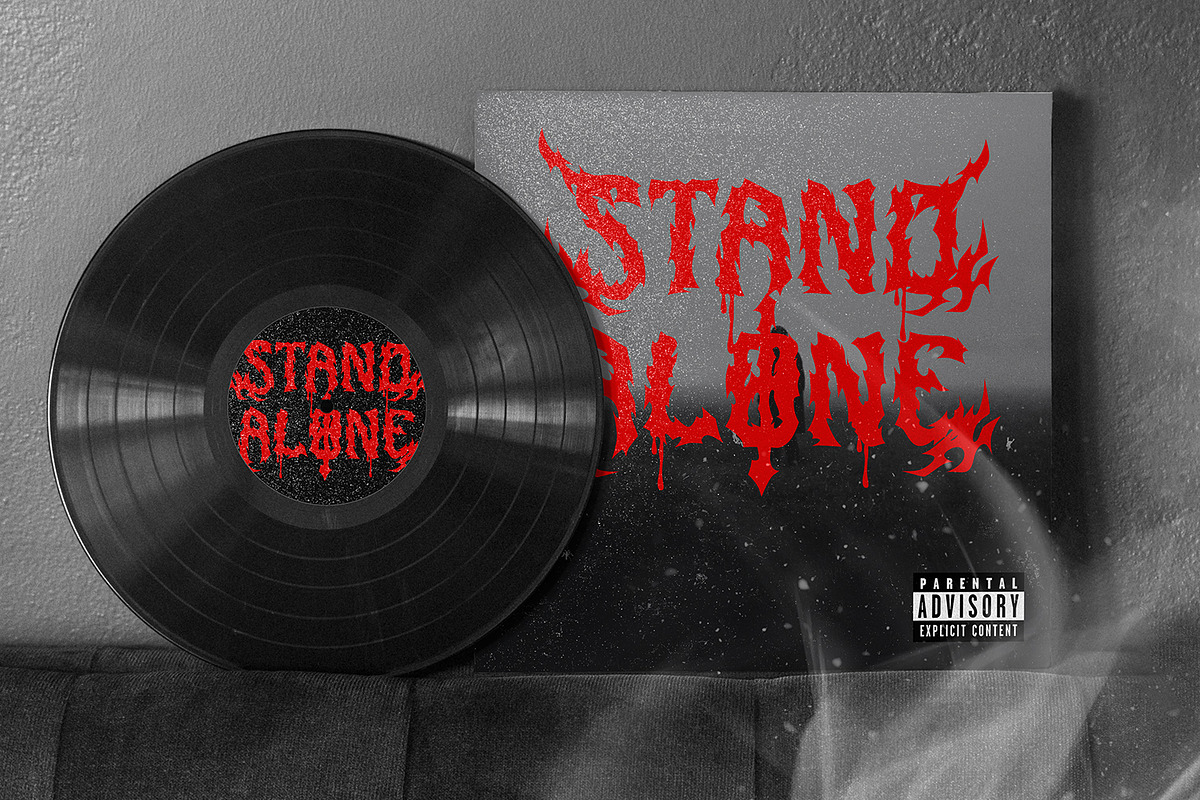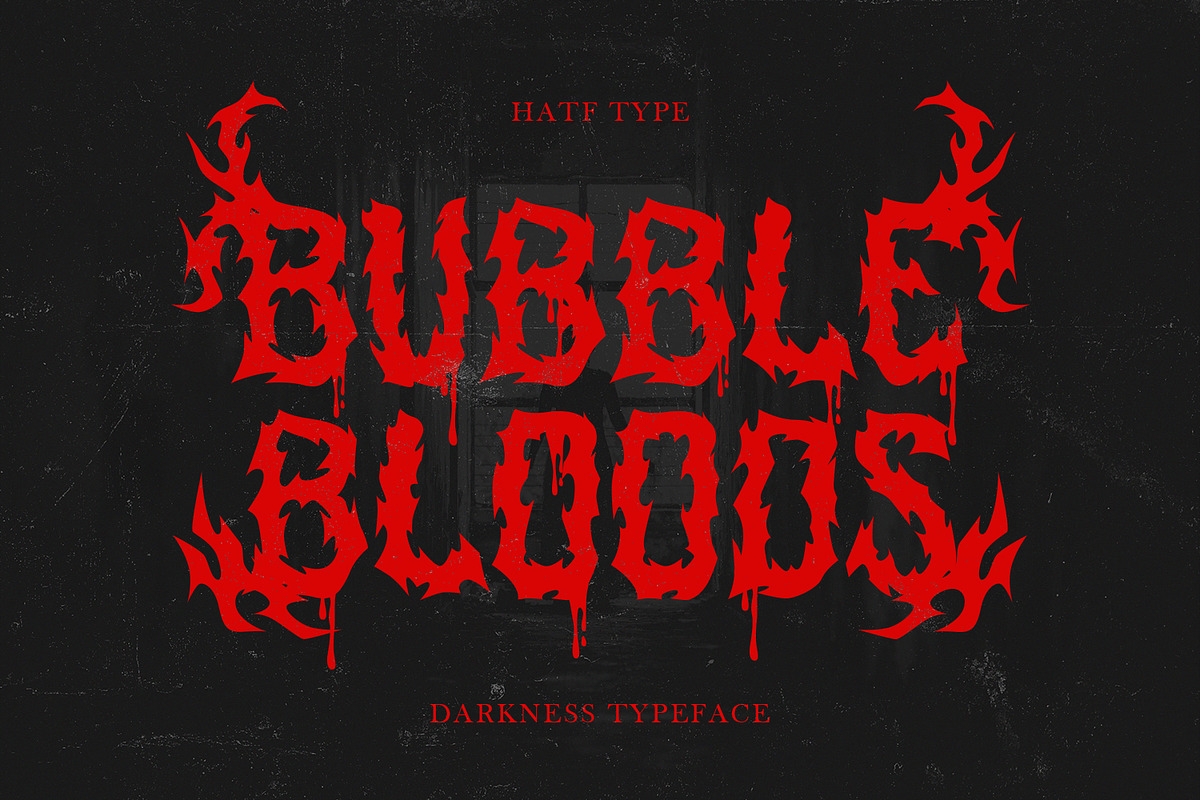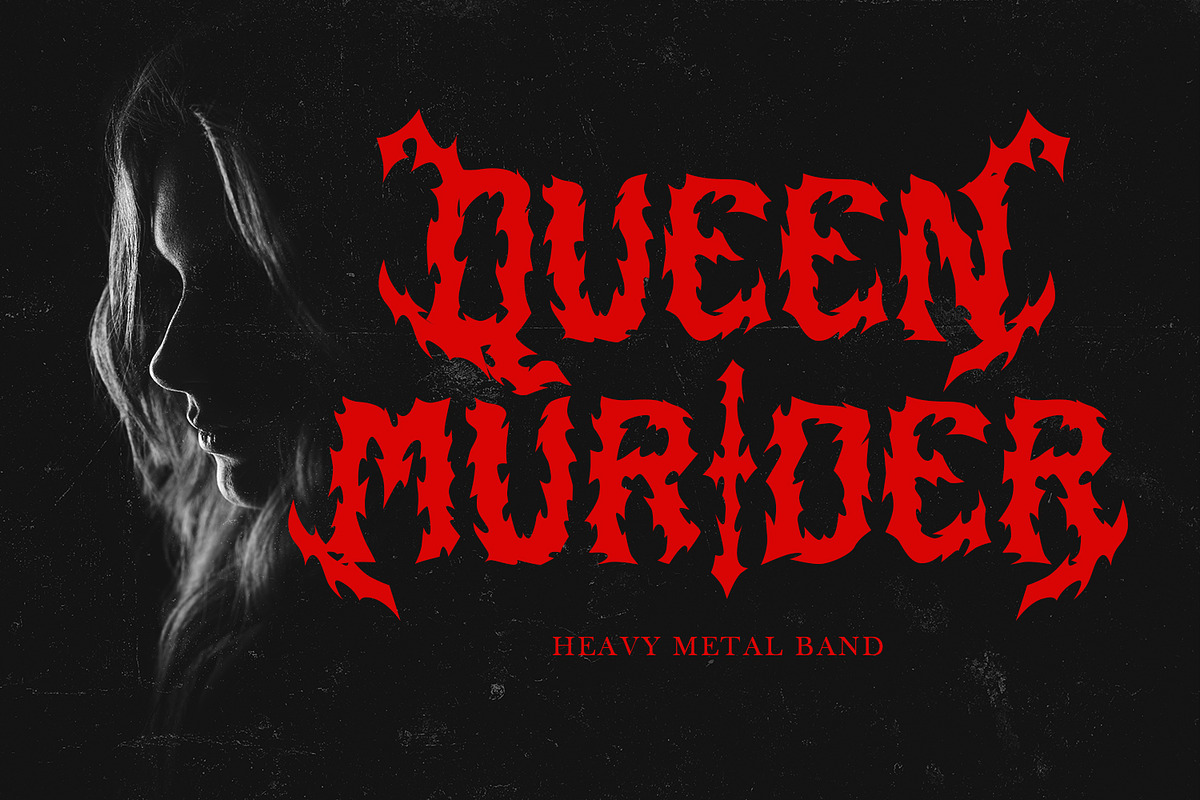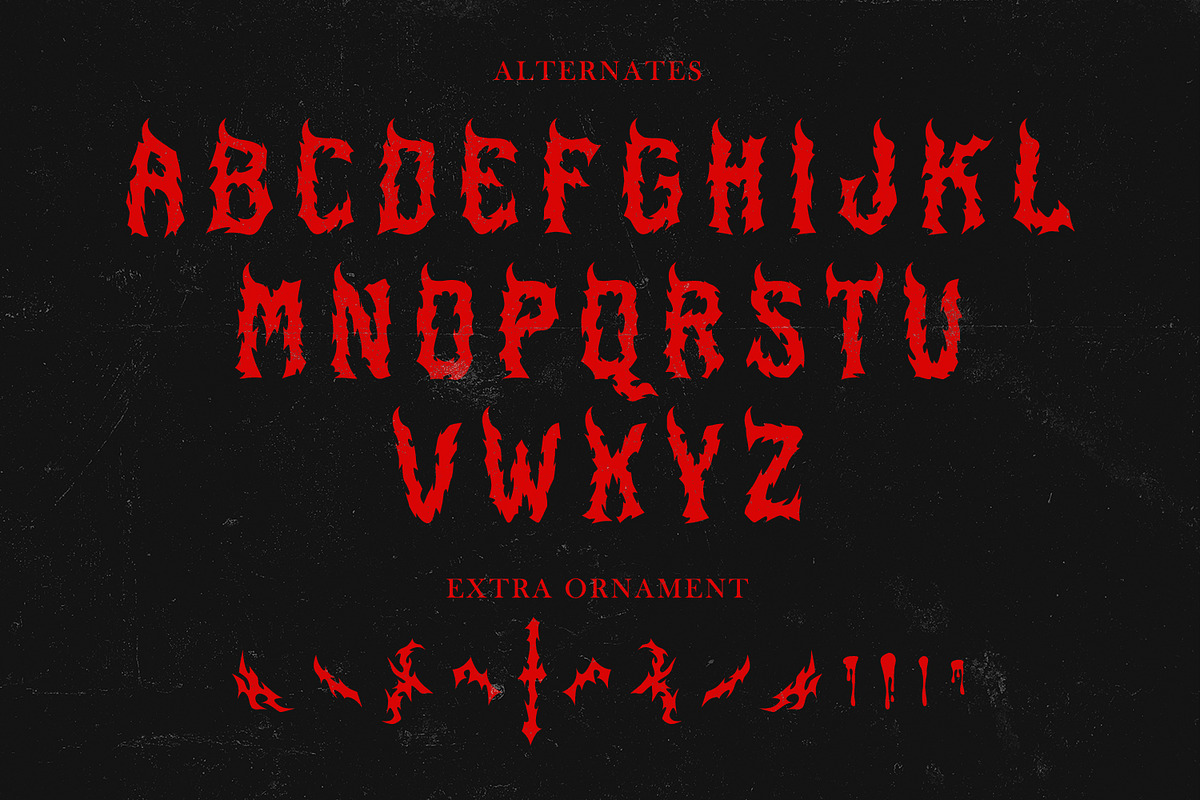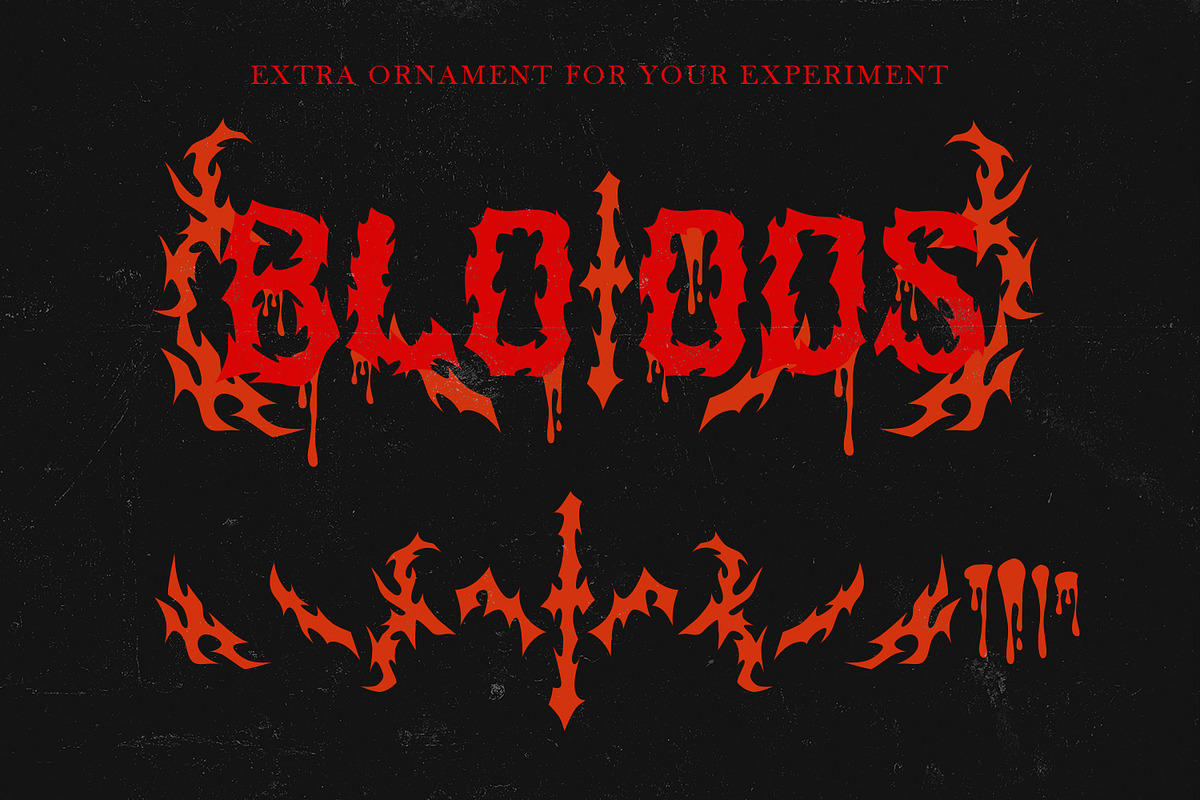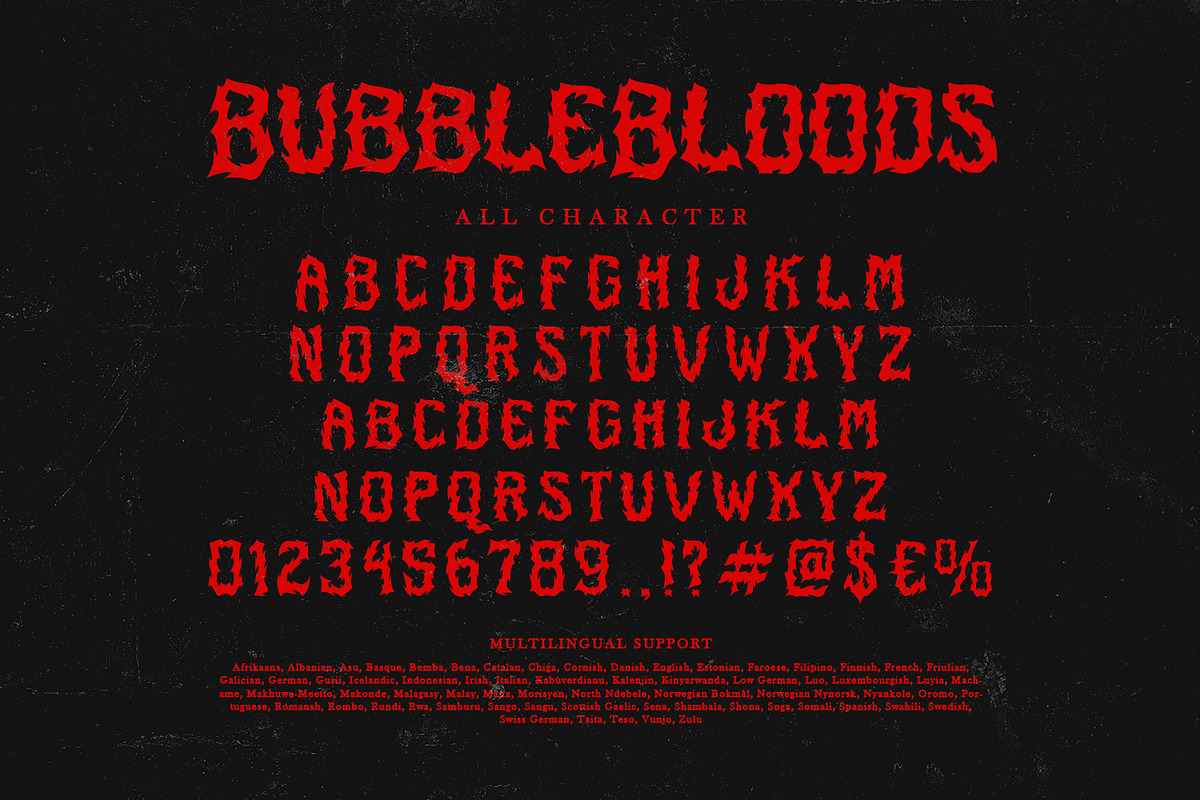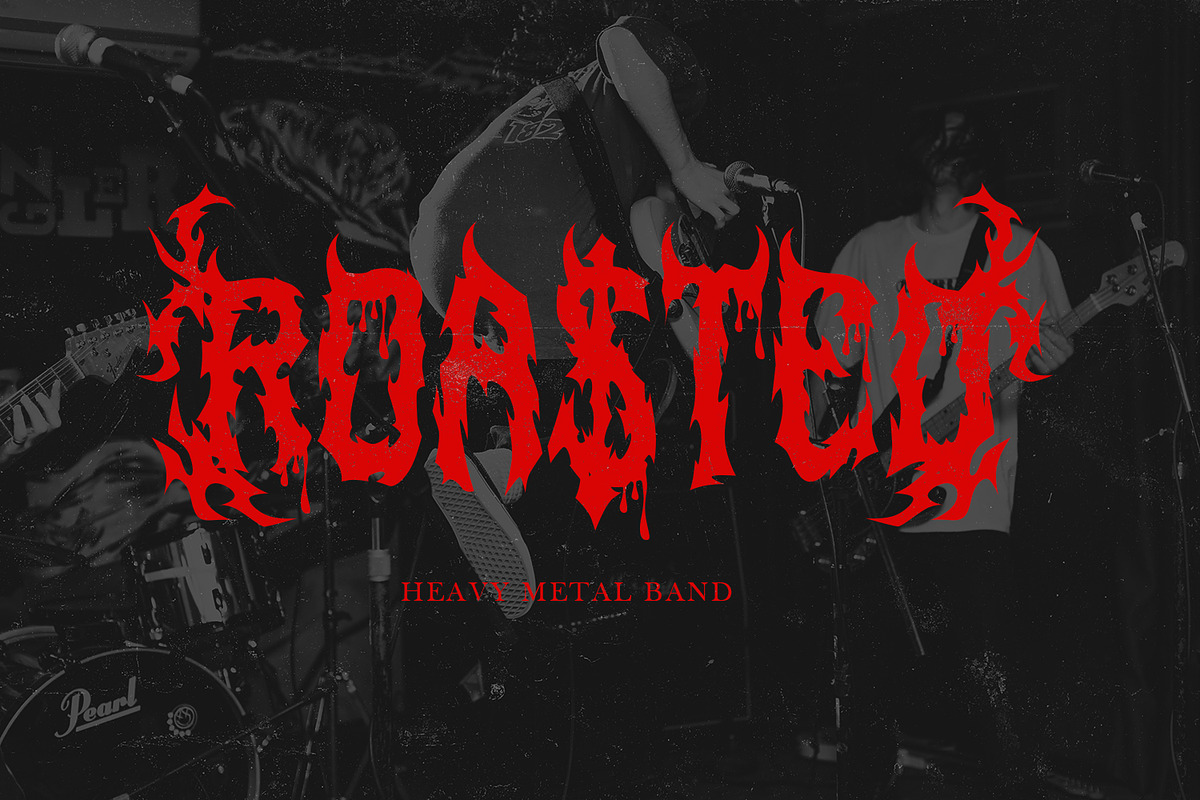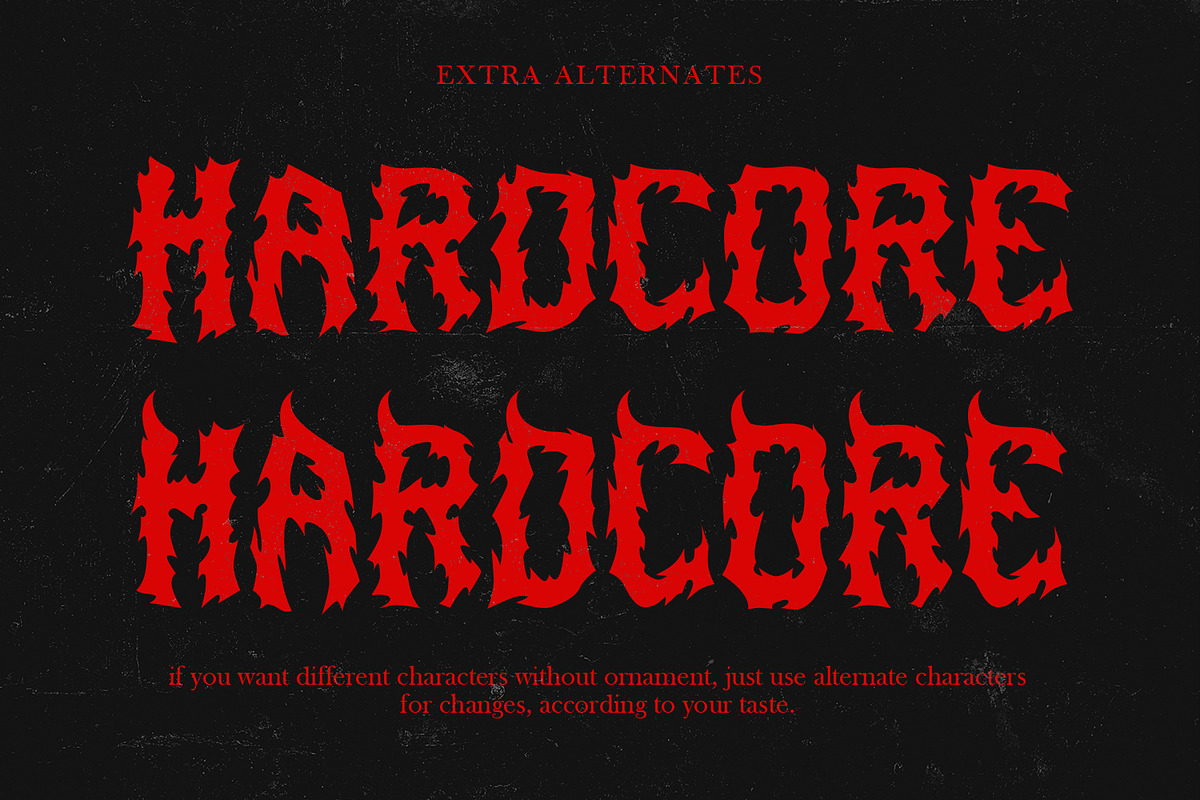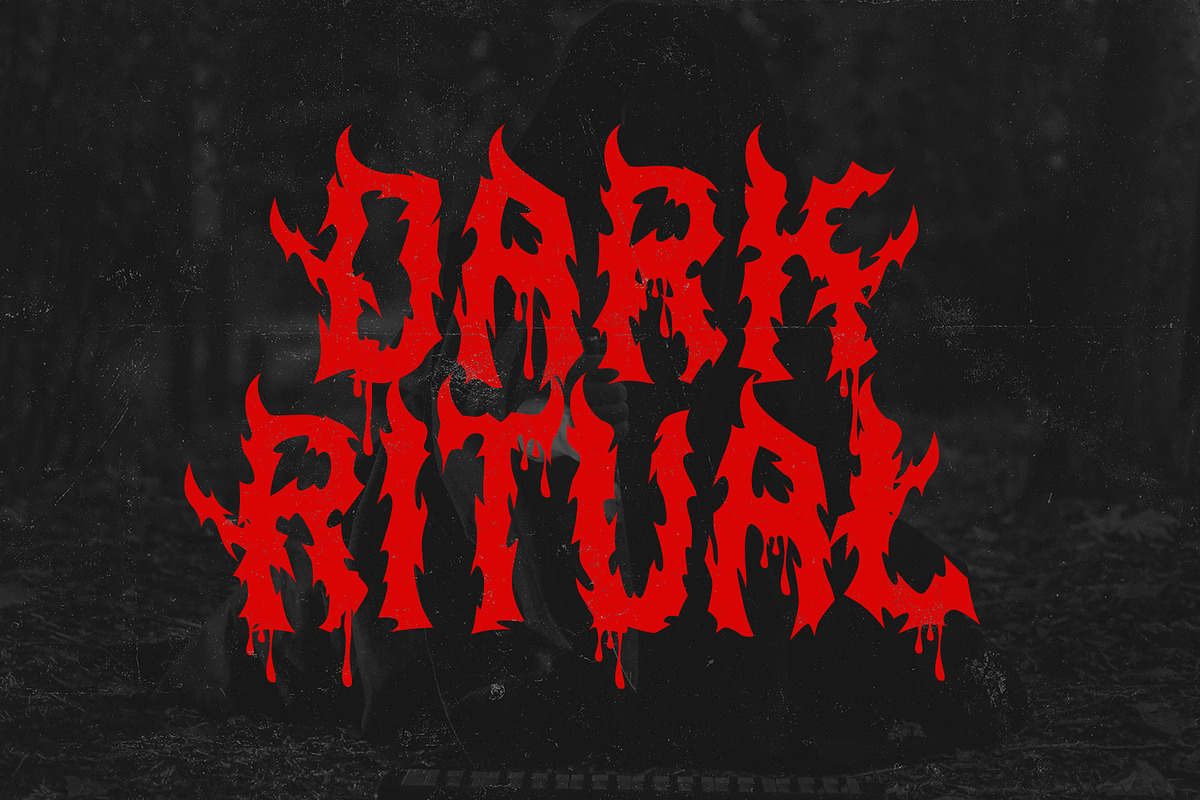
Bubblebloods
This is a blackletter display font with additional ornaments inspired by gothic and horror metal styles because its shape is very unique and very suitable for any project you will use with this theme.